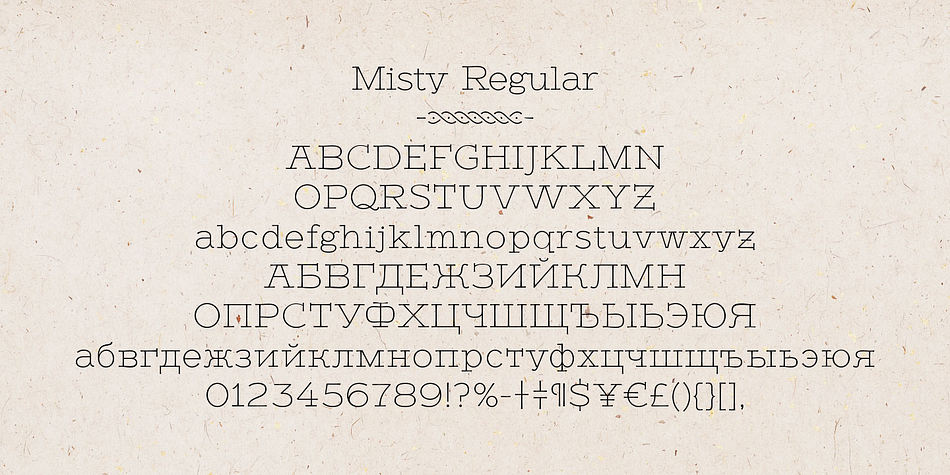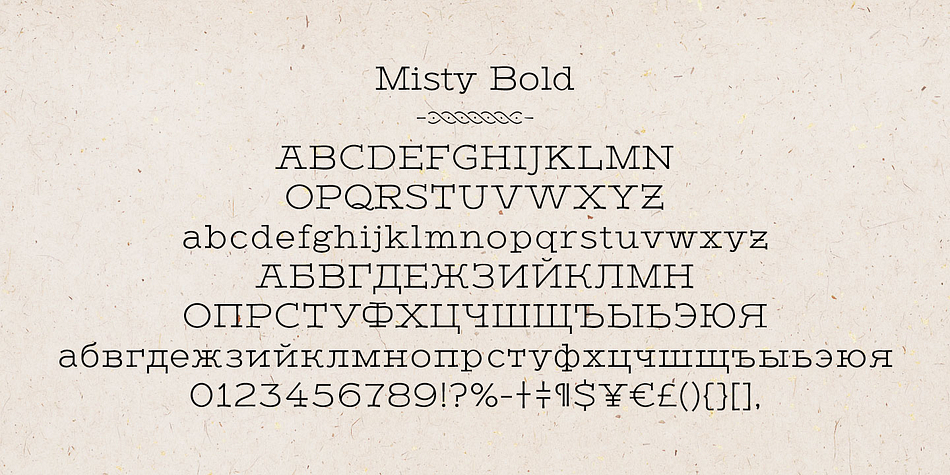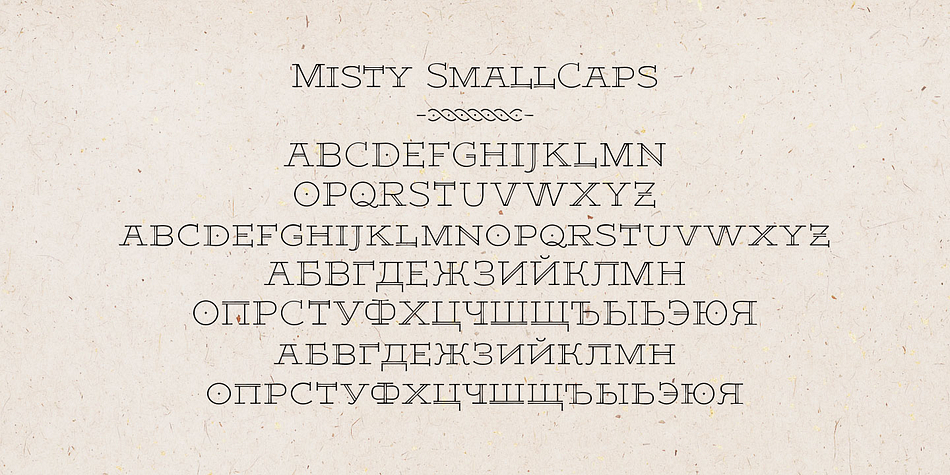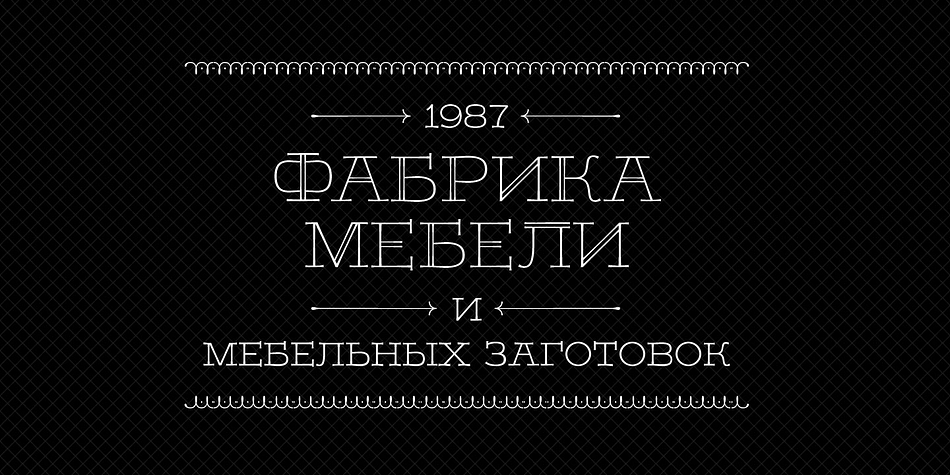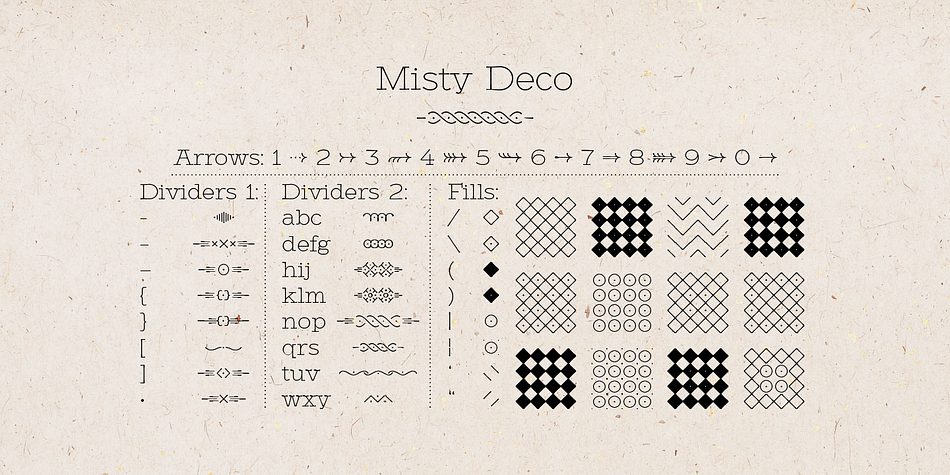
Designed by Valery Zaveryaev, Misty is a dingbat and slab serif font family. This typeface has four styles and was published by Gaslight.
Misty - two weight wild west style serif with numerous alternatives, swashes and irregular alternatives for numerous characters in SC styles. Interchanging regular characters with alternatives and vice versa, allow you to do slightly strange inscriptions. Plus deco style.